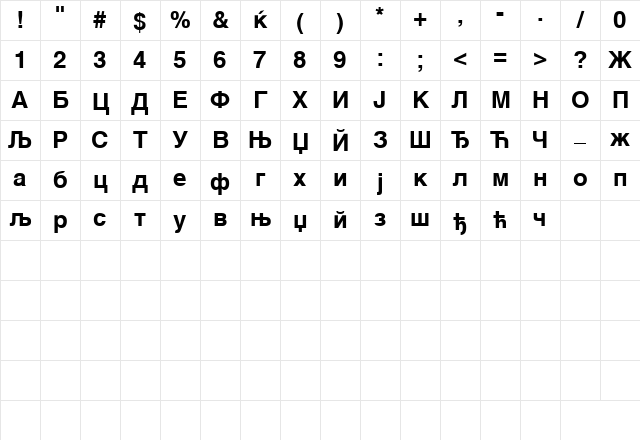
C_Helvetica Bold Regular
Design Context for C_Helvetica Bold
C_Helvetica Bold is a composed and adaptable typeface that performs quietly and consistently across a wide range of design contexts. Its bold stroke weight gives it real presence on the page.
Pro Tip: Use C_Helvetica Bold in both headline and body roles to test its range before committing to a single application.